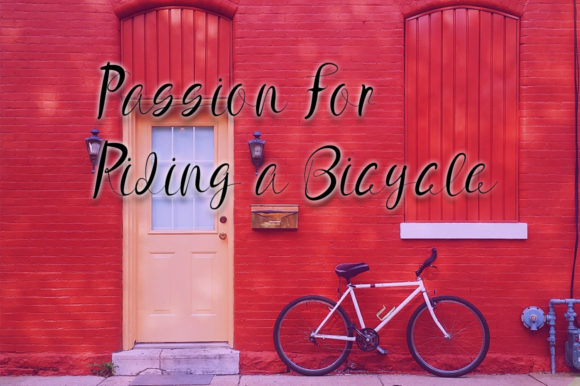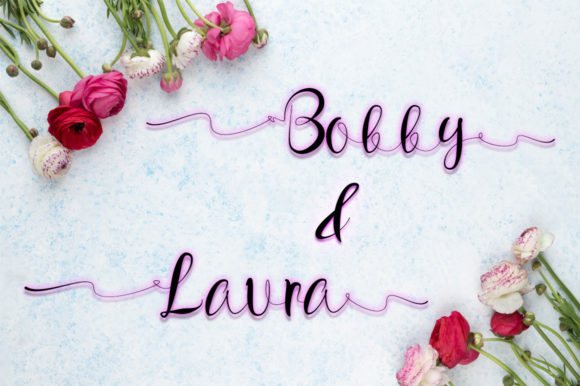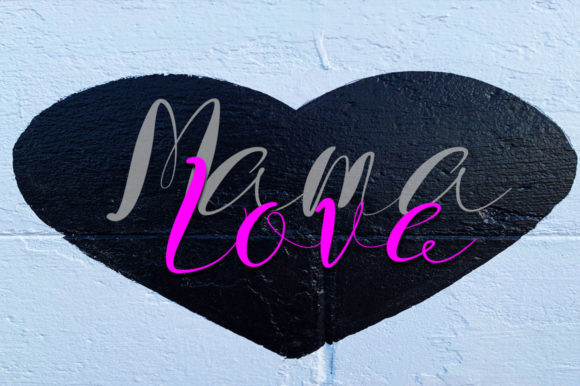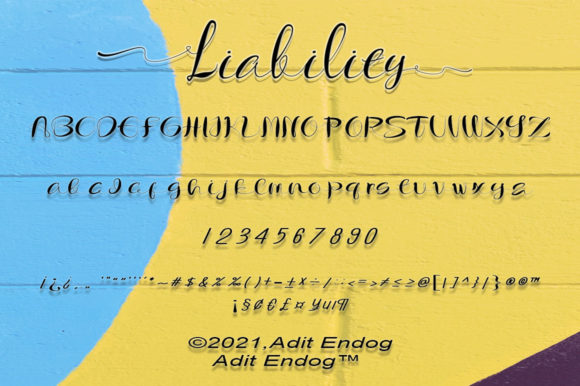
About Liability Font
Liability is a well-balanced and frail script font that exudes elegance and class. This font is PUA encoded which means you can access all glyphs and swashes with ease!